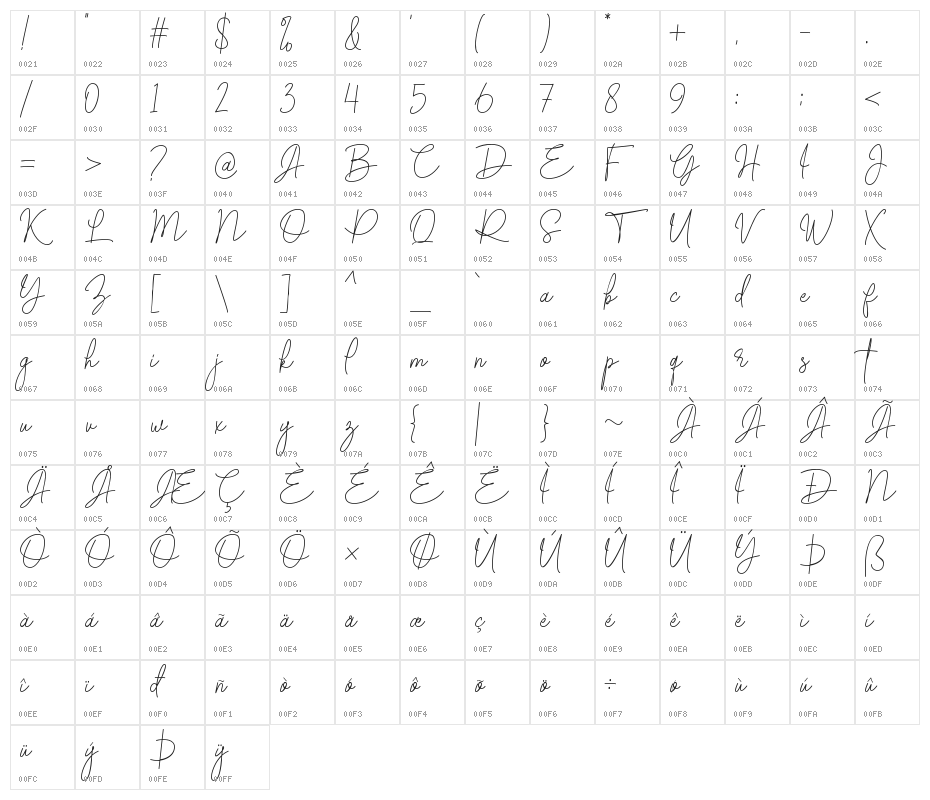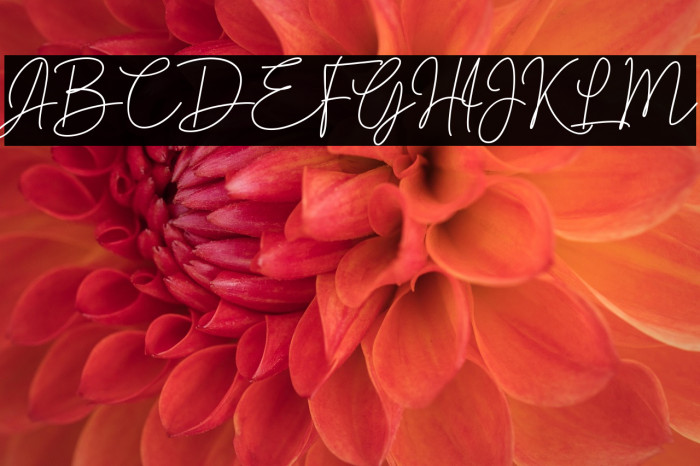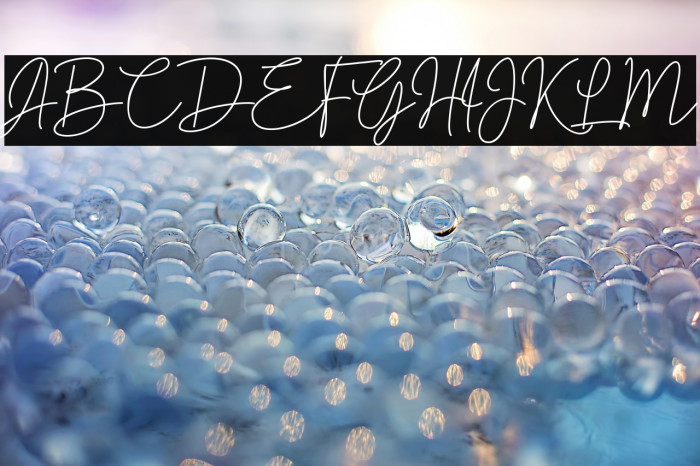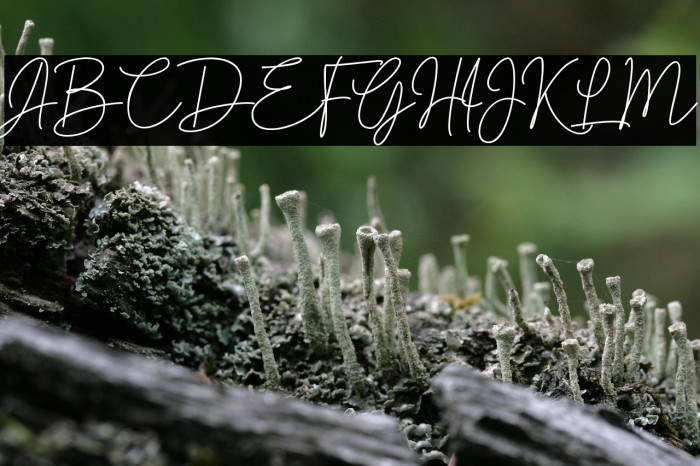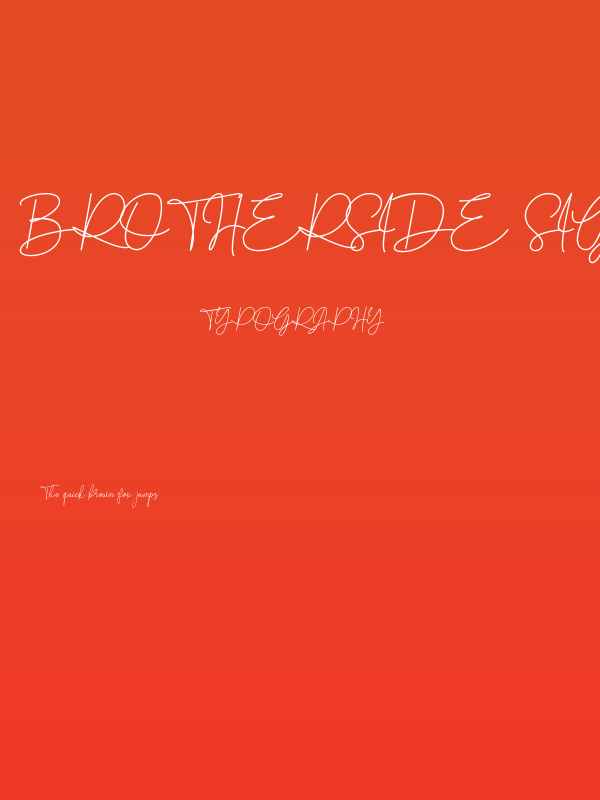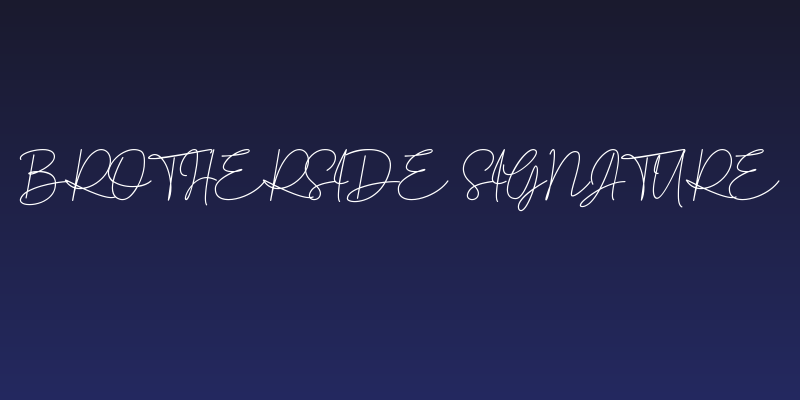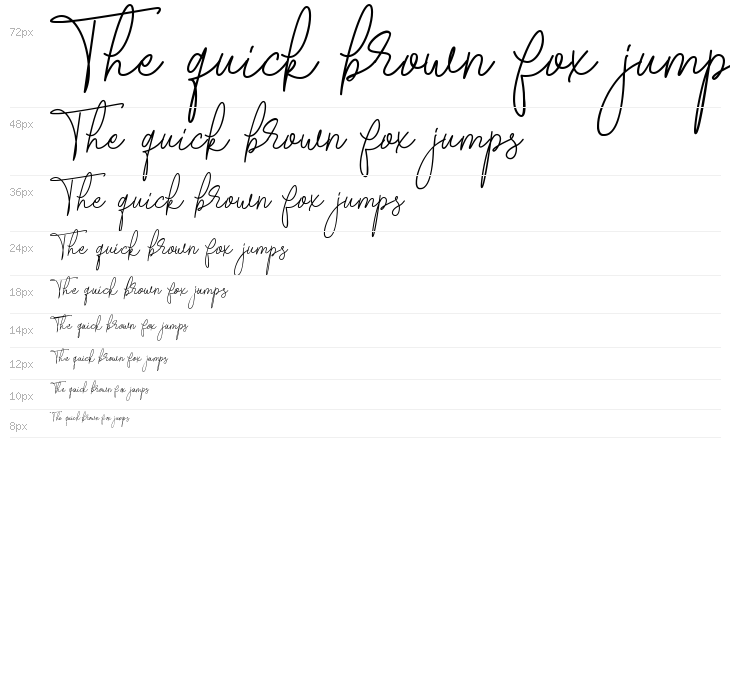
Brotherside Signature Font
Brotherside Signature Description
This font exudes elegance and sophistication with its fluid, cursive style. The letters are interconnected, creating a seamless flow that mimics natural handwriting. The uppercase letters are tall and graceful, while the lowercase letters maintain a consistent rhythm and balance. The numerals are distinct yet harmonize well with the overall script style. Special characters are thoughtfully designed to match the font's aesthetic, making it versatile for various uses. The thin strokes and gentle curves give it a delicate appearance, perfect for adding a personal touch to any project.
| Overall Style | Elegant |
| Use Case | Logos, Invitations, Personal Branding |
| Proposed Projects | Ideal for wedding invitations, personal branding, greeting cards, and elegant logos. |